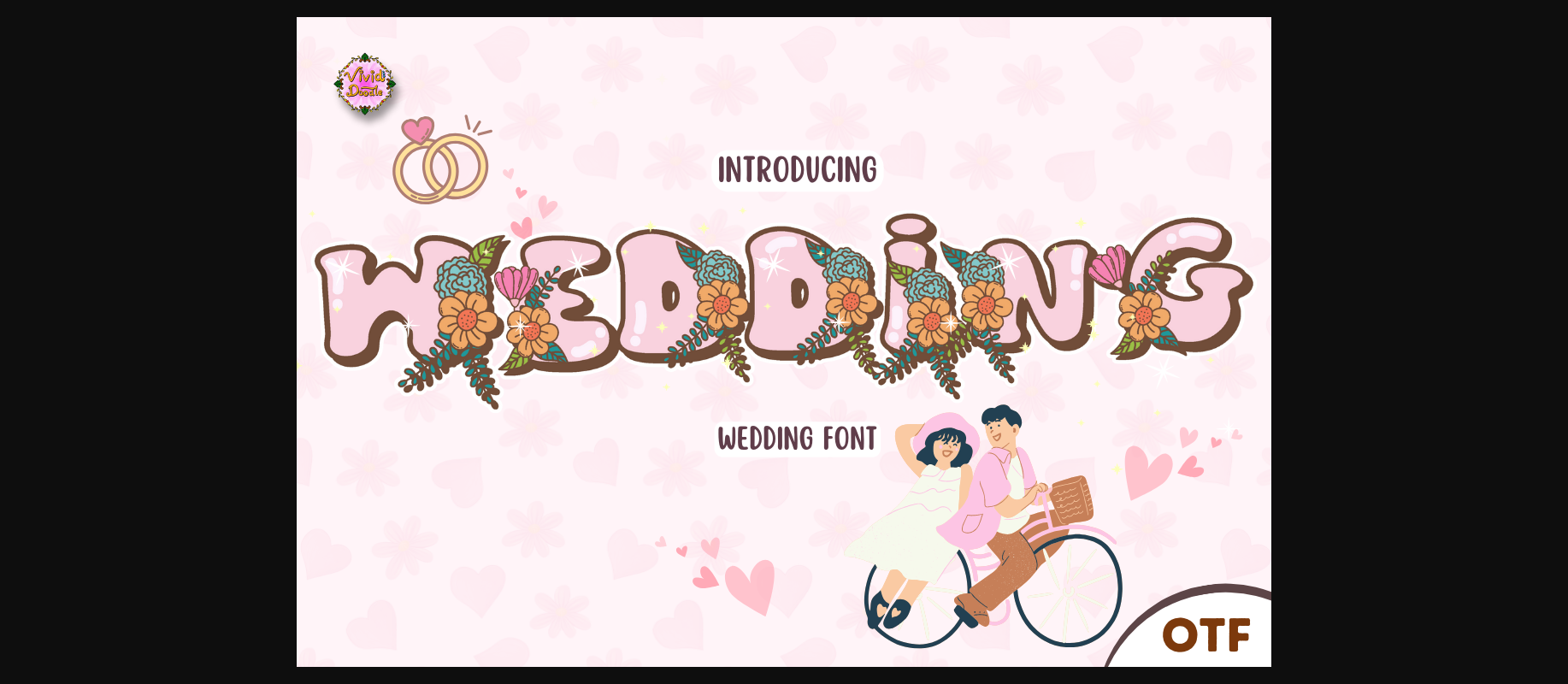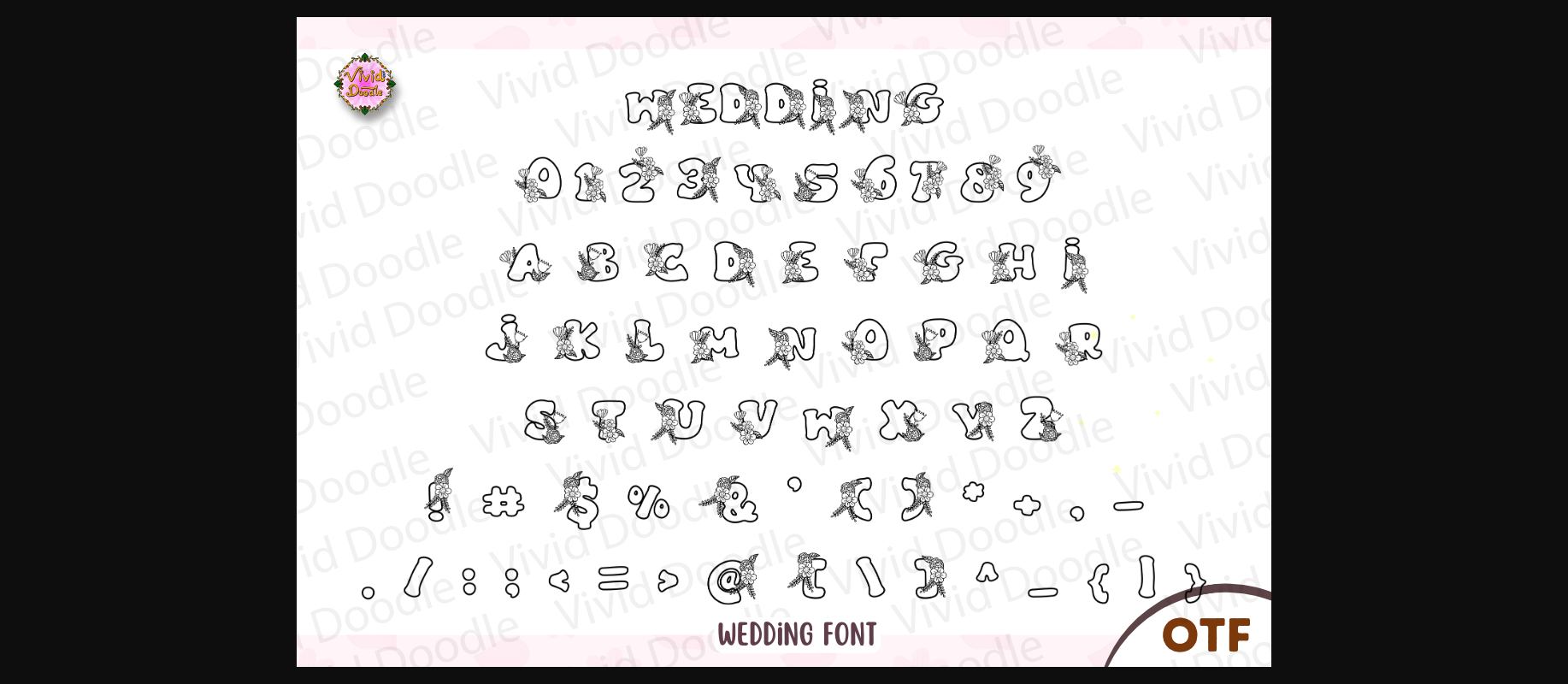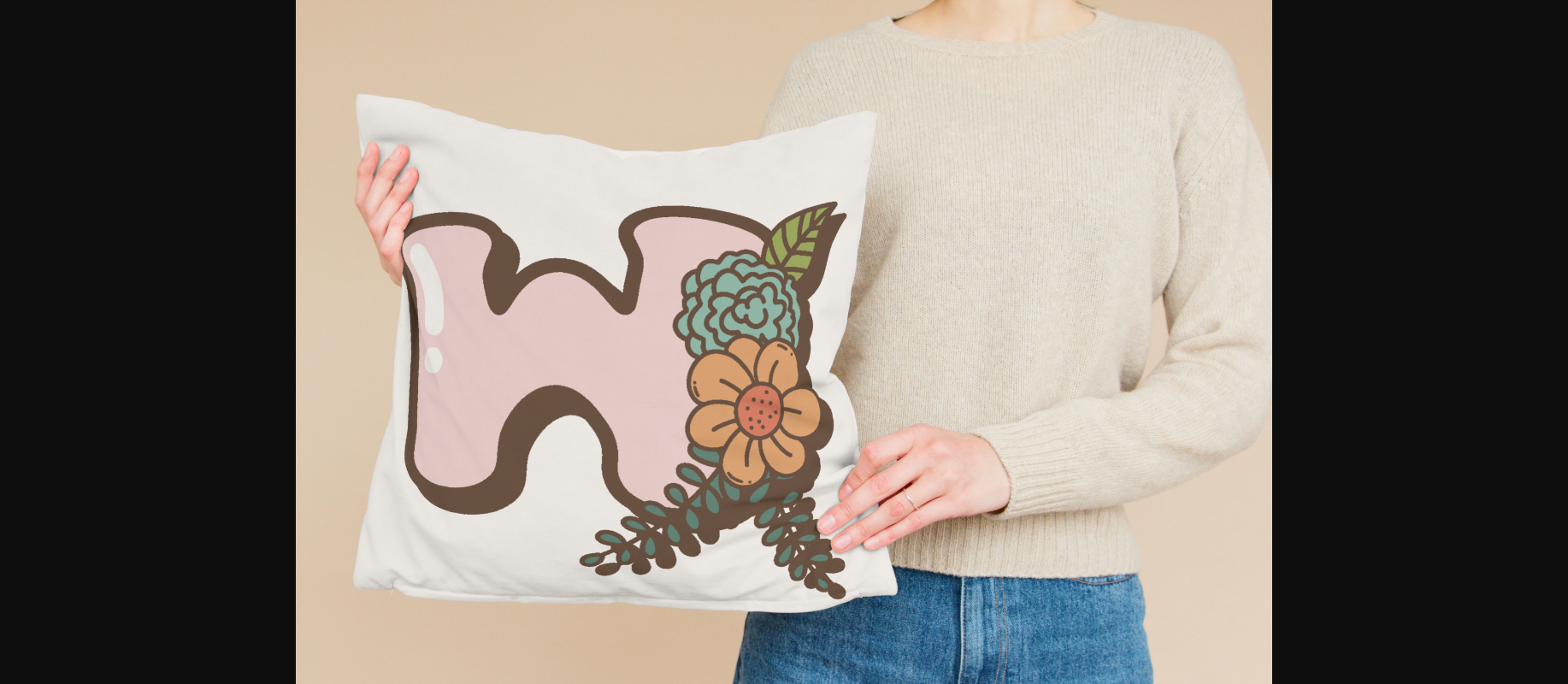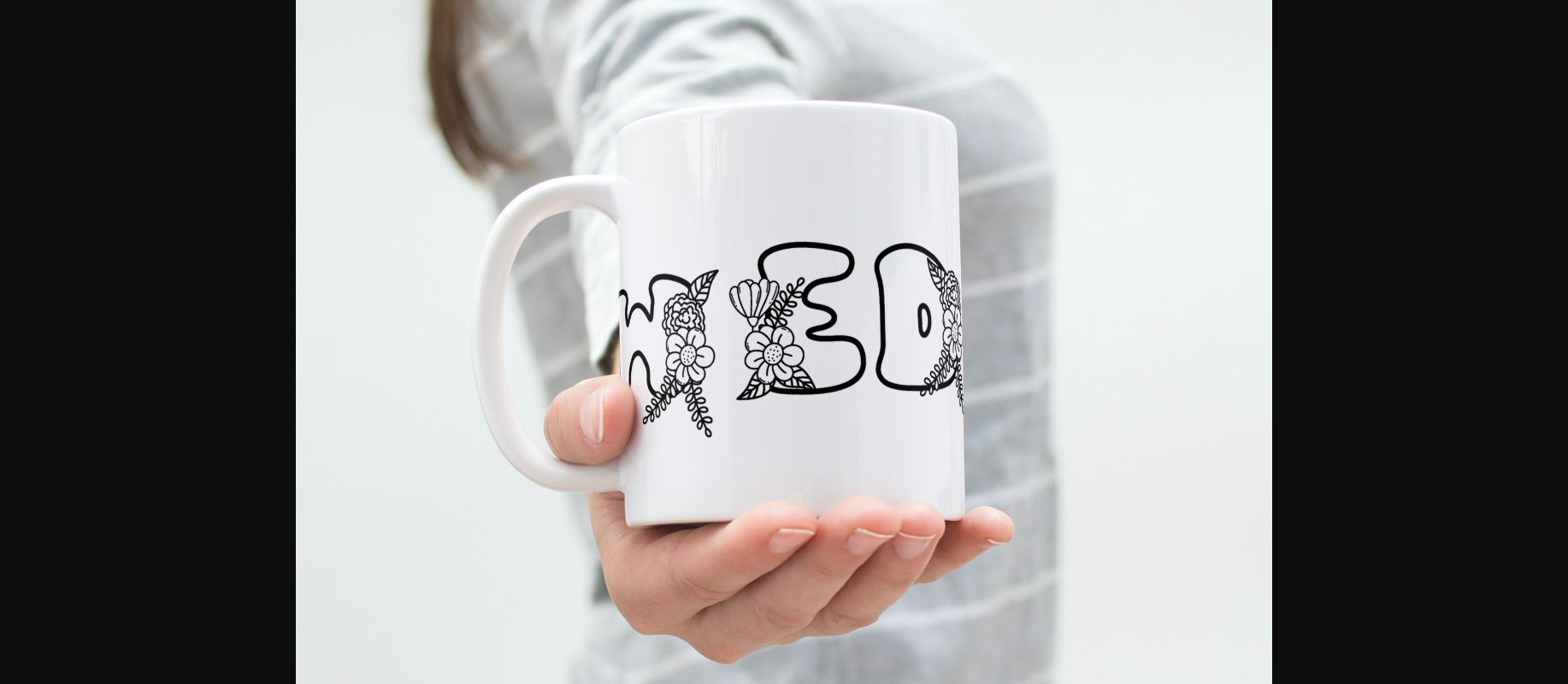
Wedding Font
About Wedding Font
Wedding — a romantic and elegant typeface perfect for celebrations, wedding themes, floral designs, boutique branding, gifts, cards, and various other creative projects. Each letter exudes a touch of sophistication and romance, making it ideal for creating a timeless and enchanting atmosphere. Whether for wedding invitations, floral arrangements, or any project that celebrates love and elegance, this font seamlessly blends a refined aesthetic with a touch of romantic charm.